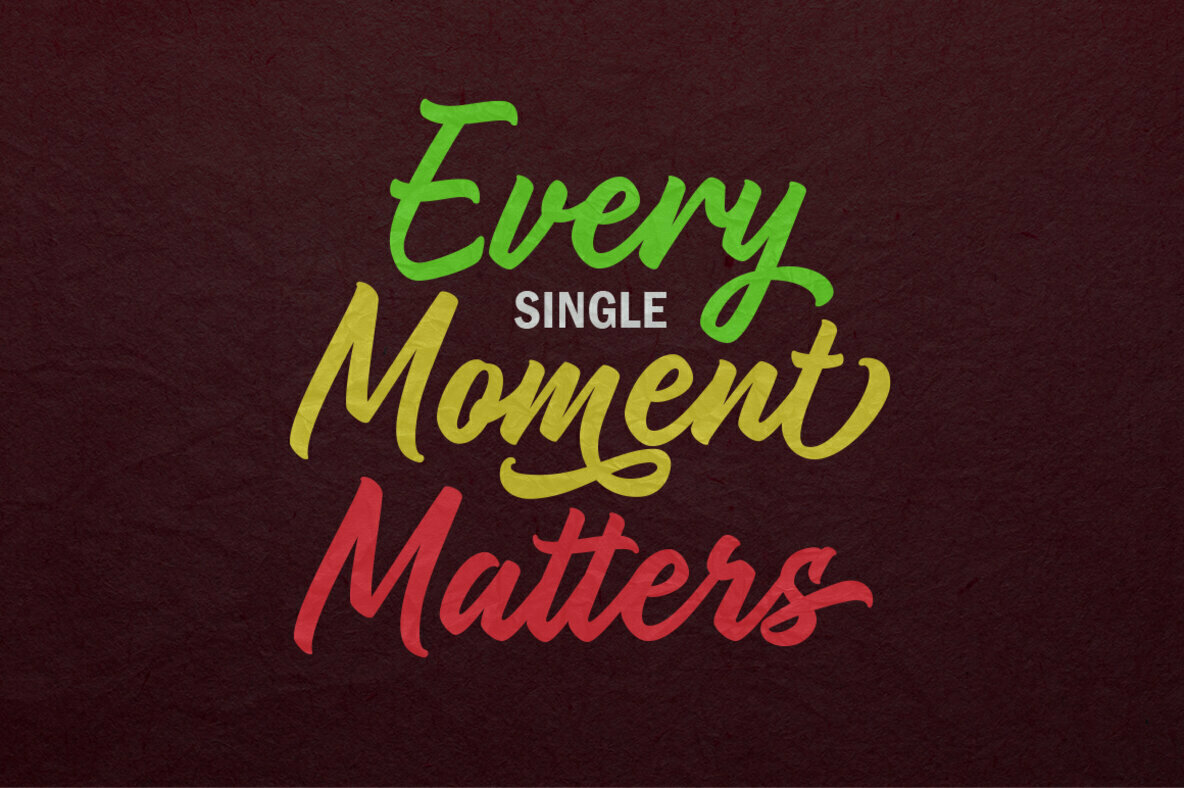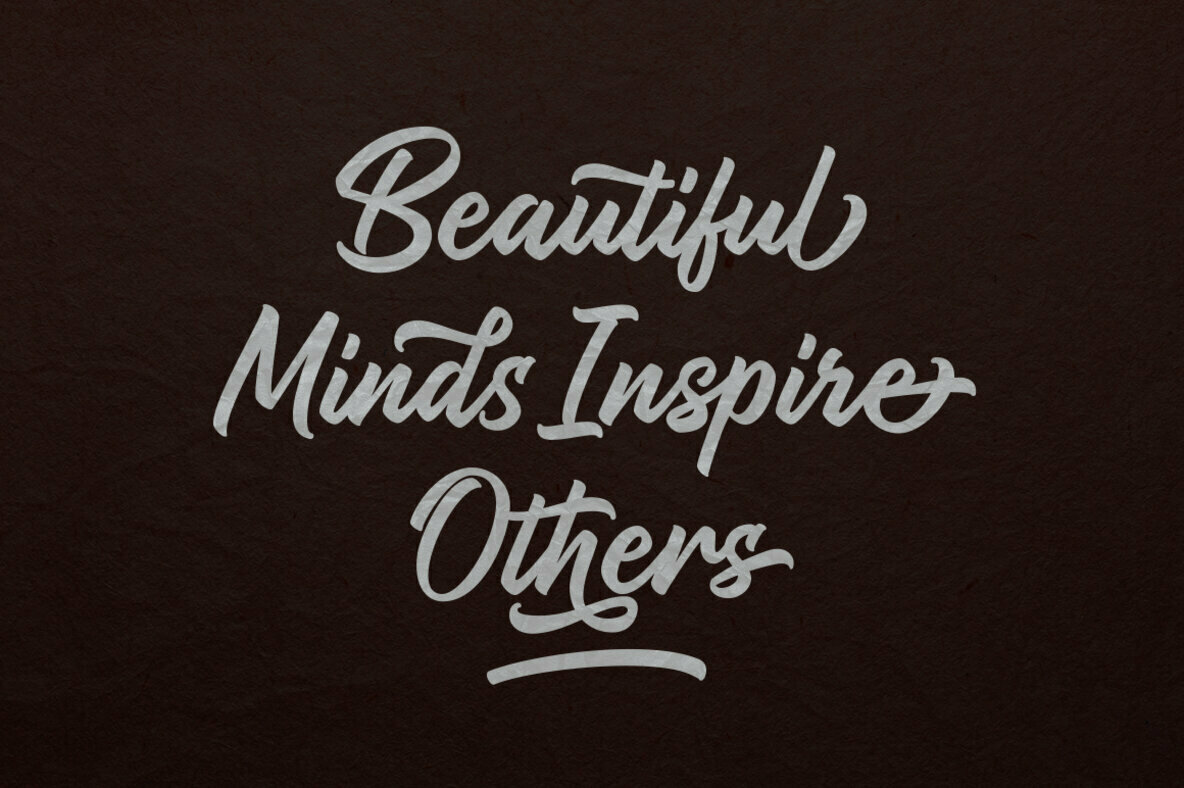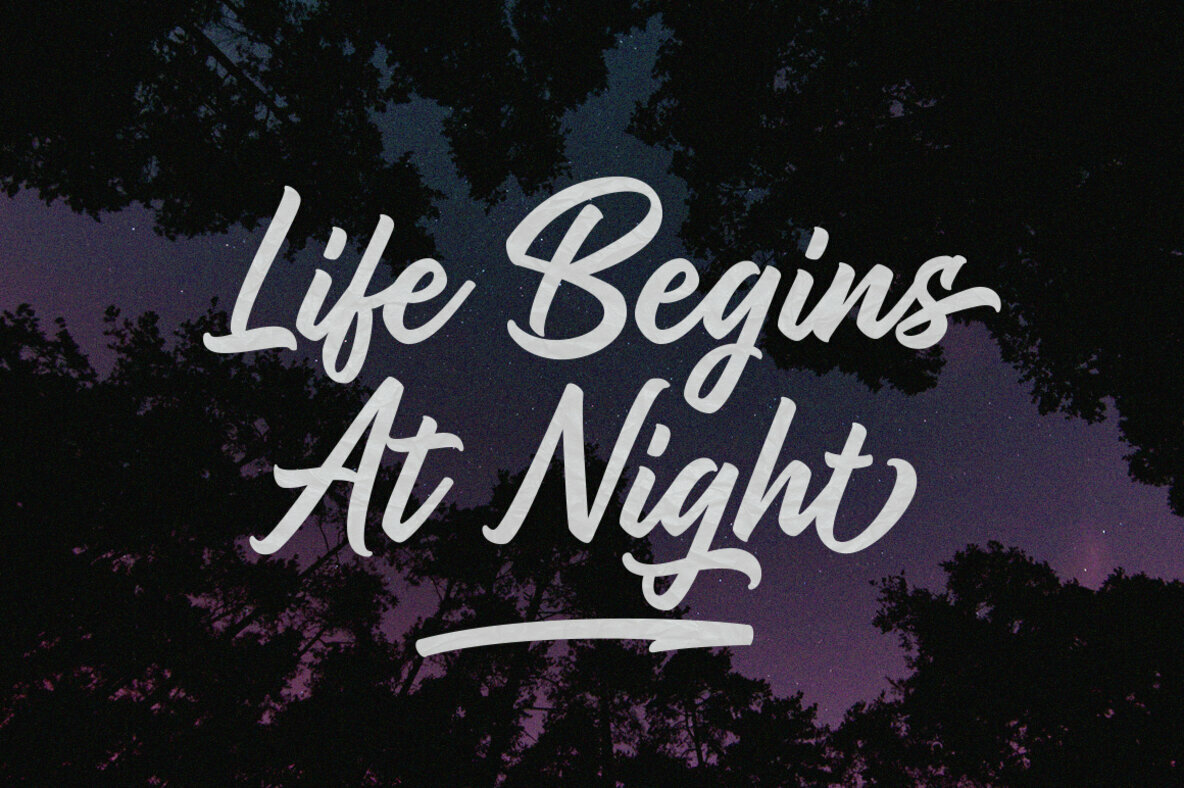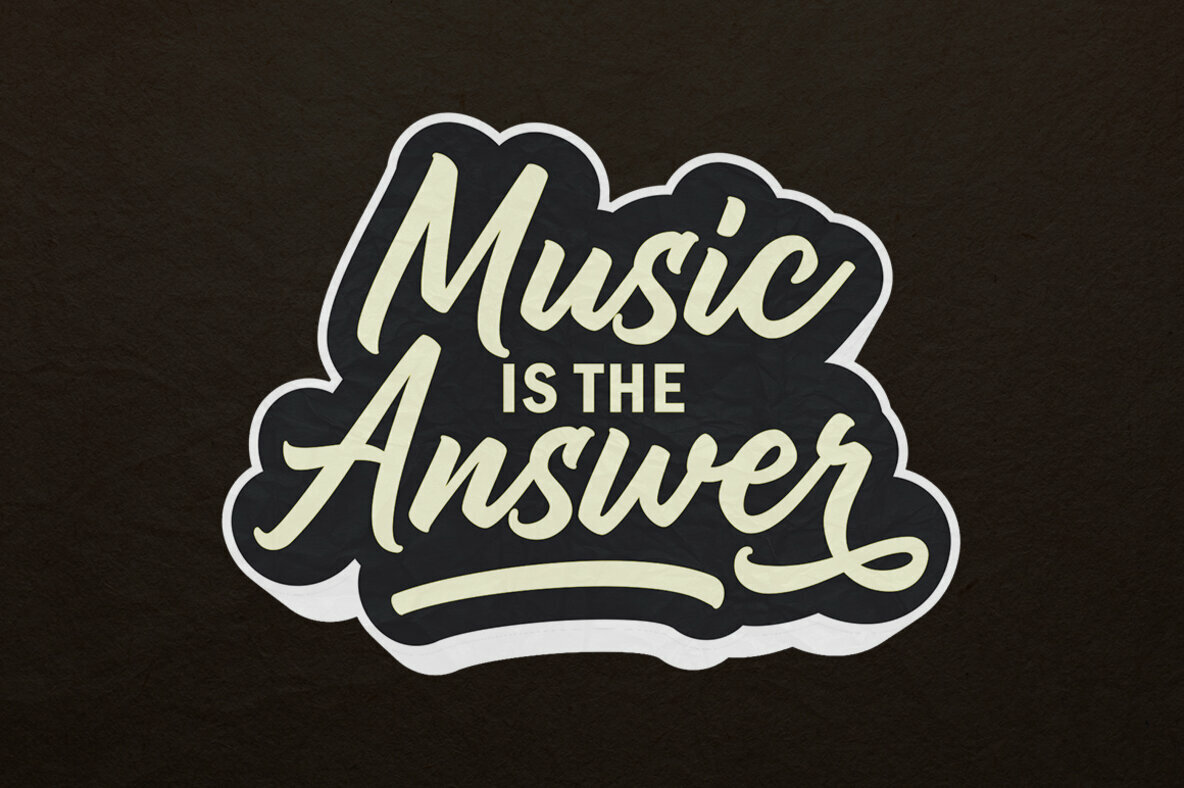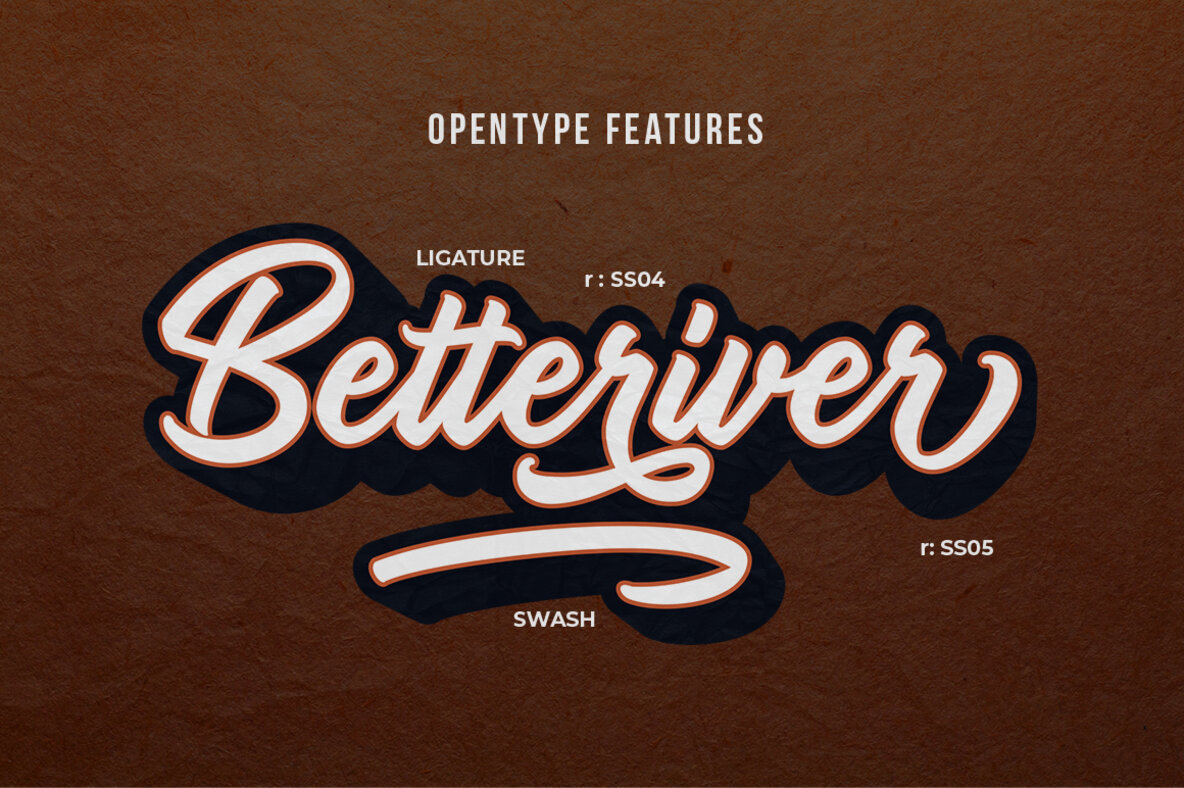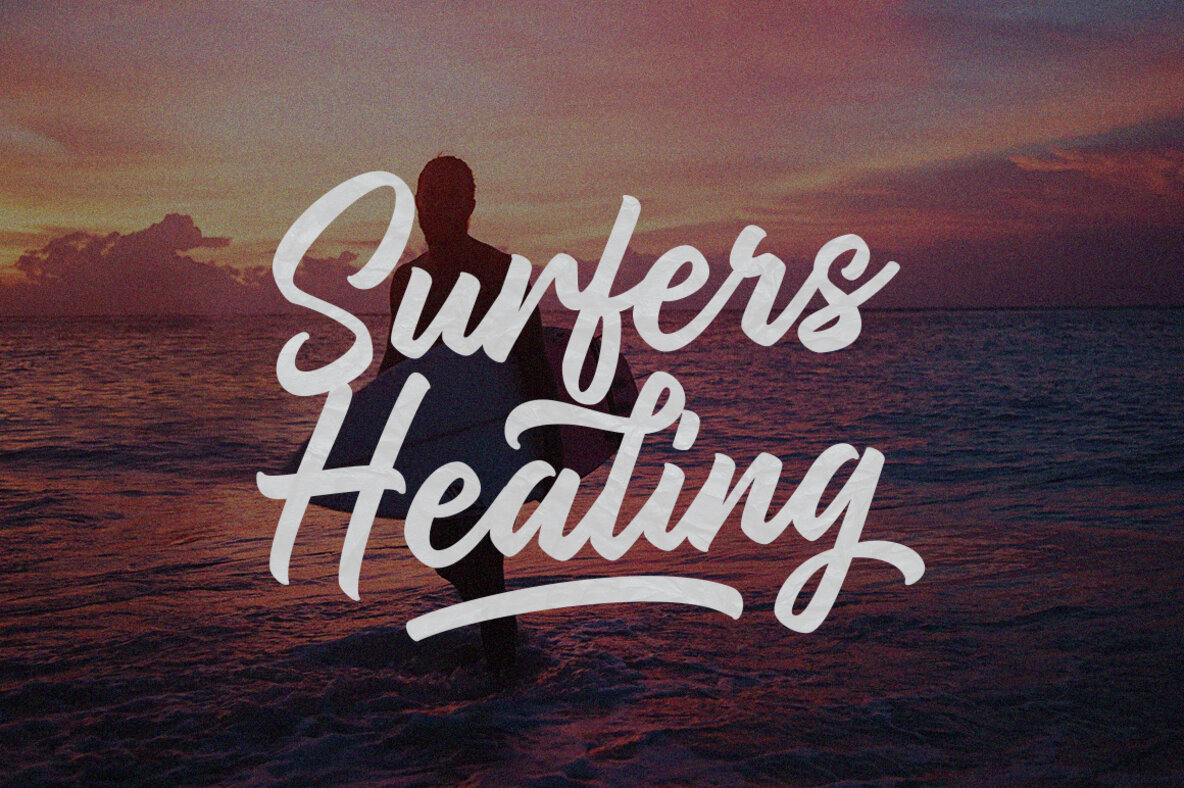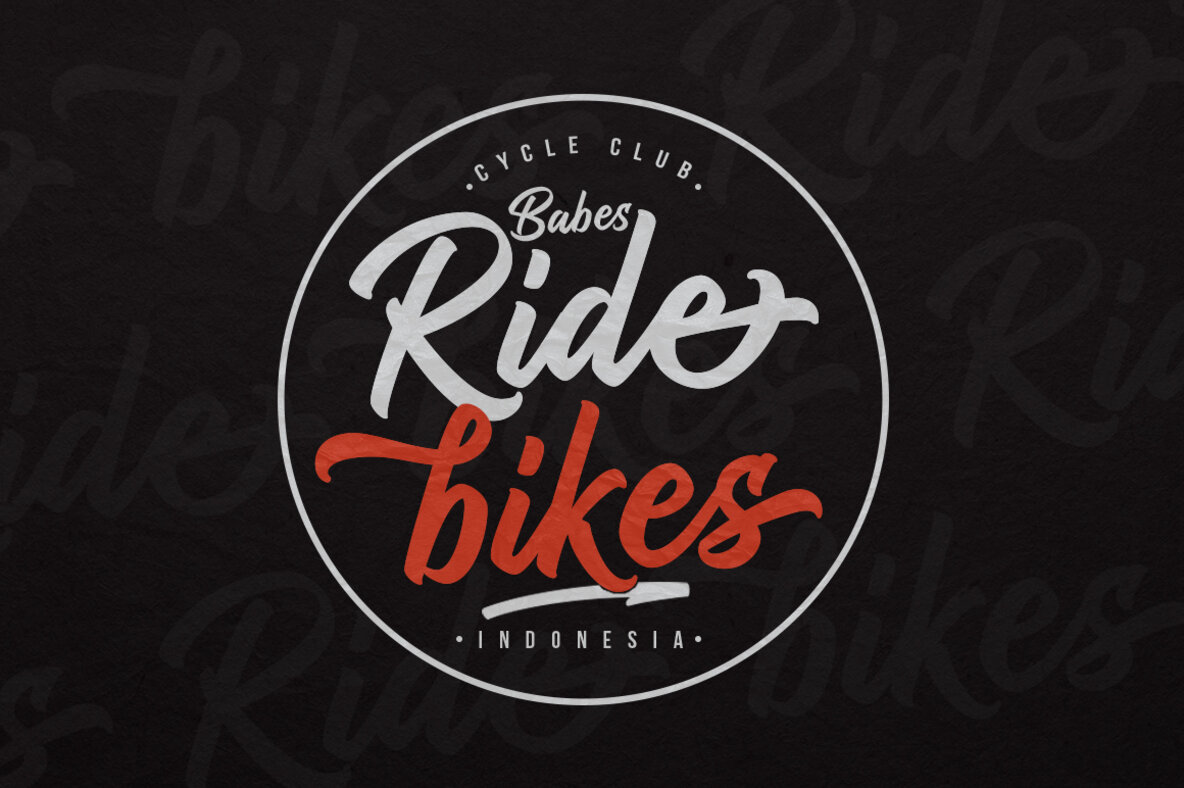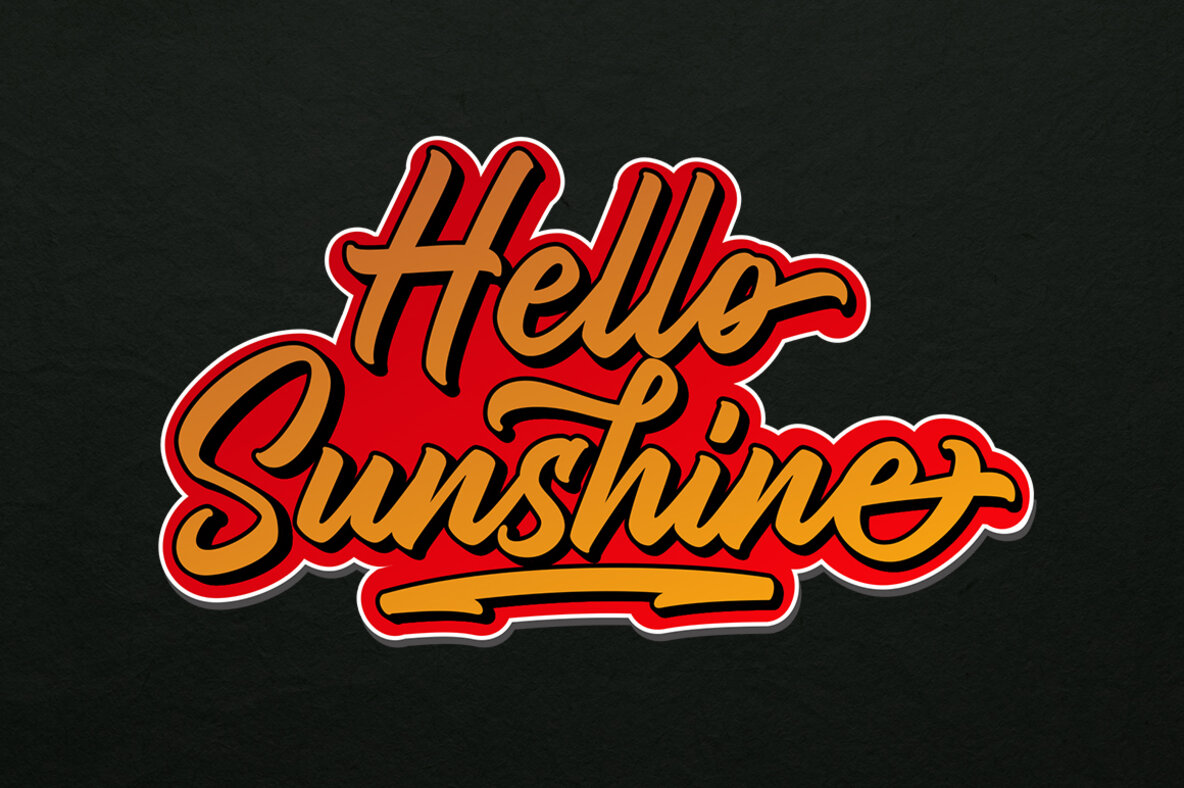
Central Point
Immerse yourself in the world of finely crafted typography with Central Point, a bold script font that draws inspiration from the rich tradition of handlettering. This typeface bridges the gap between spontaneity and structure, making it ideal for a multitude of design projects such as logo design, clothing, handwritten quotes, and product packaging. Additionally, it lends an authentic touch to headers, posters, merchandise, social media, greeting cards, and various forms of creative artwork.Central Point: Versatile Script with Handwritten Charm